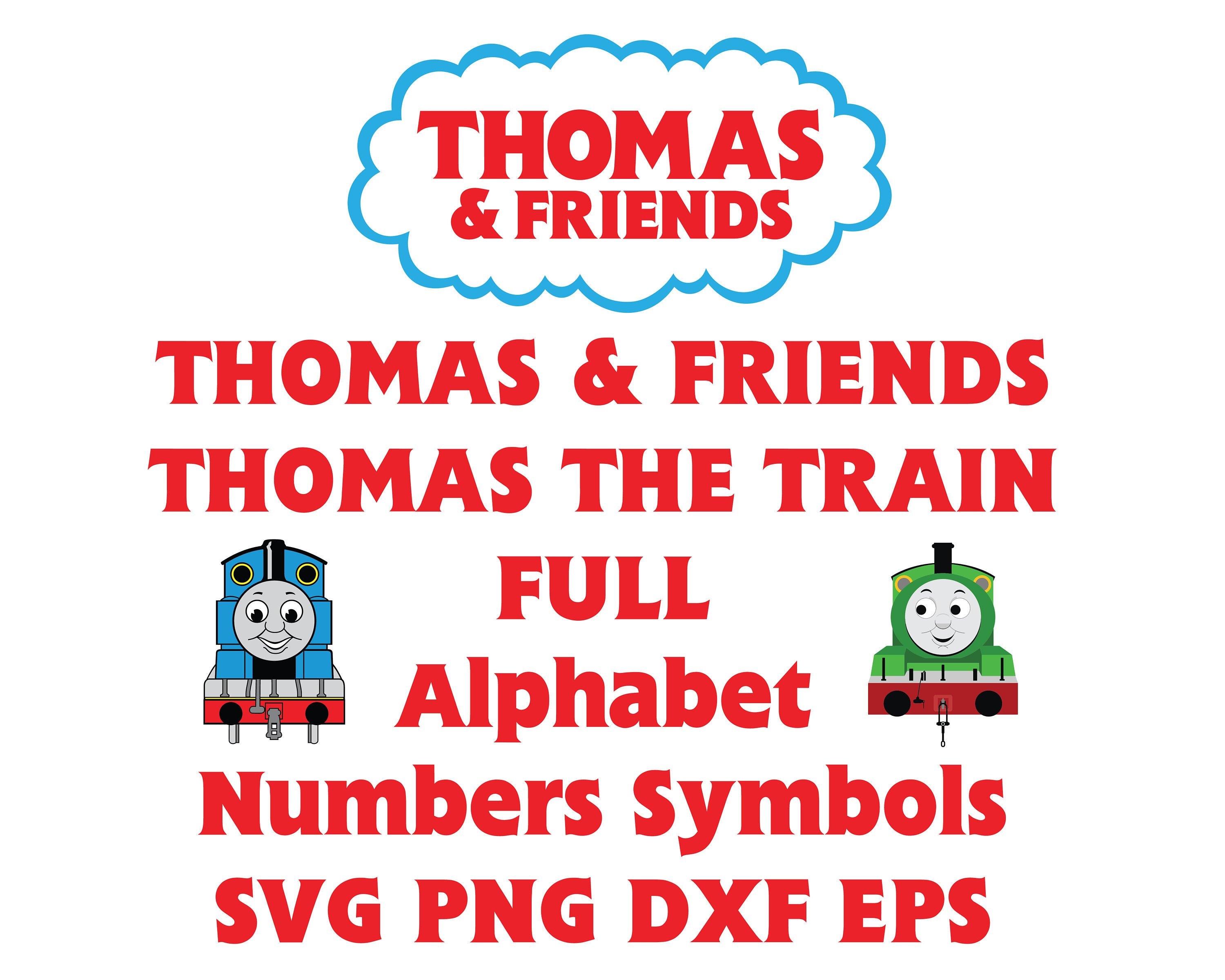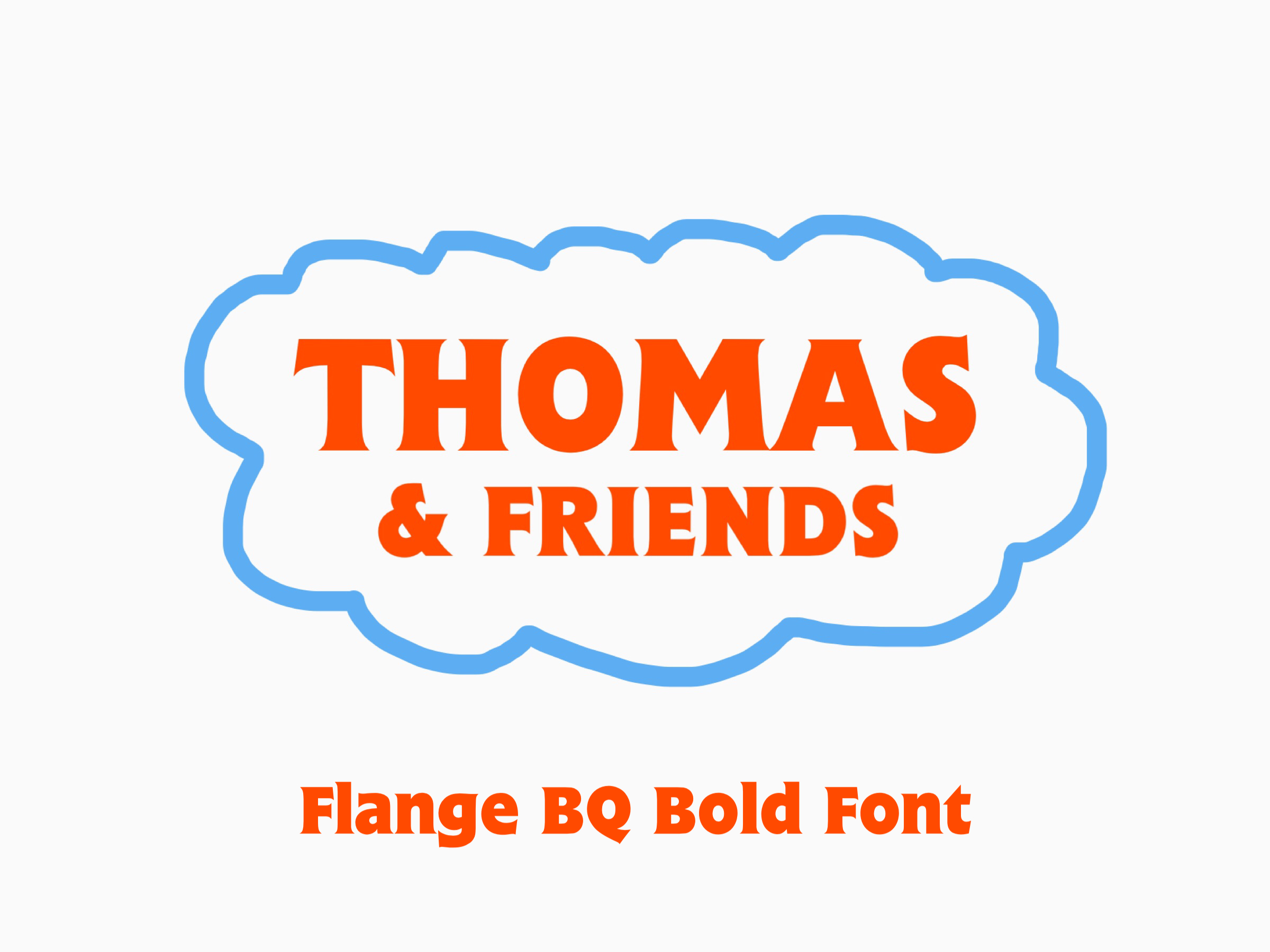
Thomas And Friends Font
Thomas And Friends Font - Thomas & friends (originally known as thomas the tank engine & friends in its early seasons) is a british children’s television series. Web thomas and friends font family. Web its name is flange bq bold font and it was designed by leslie usherwood. Designed by leslie usherwood, flange is a serif typeface available in four weights: And this style has 205 glyphs as well as 1000 units per em. You can use this font for both personal and commercial use. What is the font for thomas the tank engine & friends? Web aug 02, 2020 at 18:49. Web the font used for the logo of the tv series is flange bq bold. This bold font has available in a bold style along with truetype features.
Thomas & friends (originally known as thomas the tank engine & friends in its early seasons) is a british children’s television series. Designed by leslie usherwood, flange is a serif typeface available in four weights: What is the font for thomas the tank engine & friends? And this style has 205 glyphs as well as 1000 units per em. Web the font used for the logo of the tv series is flange bq bold. This bold font has available in a bold style along with truetype features. Web aug 02, 2020 at 18:49. You can use this font for both personal and commercial use. Web its name is flange bq bold font and it was designed by leslie usherwood. Web thomas and friends font family.
Web its name is flange bq bold font and it was designed by leslie usherwood. What is the font for thomas the tank engine & friends? Designed by leslie usherwood, flange is a serif typeface available in four weights: You can use this font for both personal and commercial use. Web thomas and friends font family. And this style has 205 glyphs as well as 1000 units per em. Web aug 02, 2020 at 18:49. This bold font has available in a bold style along with truetype features. Web the font used for the logo of the tv series is flange bq bold. Thomas & friends (originally known as thomas the tank engine & friends in its early seasons) is a british children’s television series.
And this style has 205 glyphs as well as 1000 units per em. Web thomas and friends font family. Thomas & friends (originally known as thomas the tank engine & friends in its early seasons) is a british children’s television series. Web aug 02, 2020 at 18:49. Web the font used for the logo of the tv series is flange.
Thomas & friends (originally known as thomas the tank engine & friends in its early seasons) is a british children’s television series. This bold font has available in a bold style along with truetype features. Designed by leslie usherwood, flange is a serif typeface available in four weights: What is the font for thomas the tank engine & friends? Web.
Web thomas and friends font family. What is the font for thomas the tank engine & friends? Web its name is flange bq bold font and it was designed by leslie usherwood. Thomas & friends (originally known as thomas the tank engine & friends in its early seasons) is a british children’s television series. Web the font used for the.
Designed by leslie usherwood, flange is a serif typeface available in four weights: Thomas & friends (originally known as thomas the tank engine & friends in its early seasons) is a british children’s television series. And this style has 205 glyphs as well as 1000 units per em. This bold font has available in a bold style along with truetype.
Web thomas and friends font family. Thomas & friends (originally known as thomas the tank engine & friends in its early seasons) is a british children’s television series. You can use this font for both personal and commercial use. What is the font for thomas the tank engine & friends? Designed by leslie usherwood, flange is a serif typeface available.
Web thomas and friends font family. Thomas & friends (originally known as thomas the tank engine & friends in its early seasons) is a british children’s television series. Web aug 02, 2020 at 18:49. Web its name is flange bq bold font and it was designed by leslie usherwood. Designed by leslie usherwood, flange is a serif typeface available in.
Web thomas and friends font family. Web aug 02, 2020 at 18:49. Thomas & friends (originally known as thomas the tank engine & friends in its early seasons) is a british children’s television series. Web its name is flange bq bold font and it was designed by leslie usherwood. What is the font for thomas the tank engine & friends?
Designed by leslie usherwood, flange is a serif typeface available in four weights: Web the font used for the logo of the tv series is flange bq bold. Thomas & friends (originally known as thomas the tank engine & friends in its early seasons) is a british children’s television series. Web its name is flange bq bold font and it.
Web the font used for the logo of the tv series is flange bq bold. Web thomas and friends font family. Web aug 02, 2020 at 18:49. And this style has 205 glyphs as well as 1000 units per em. Designed by leslie usherwood, flange is a serif typeface available in four weights:
Thomas & Friends (Originally Known As Thomas The Tank Engine & Friends In Its Early Seasons) Is A British Children’s Television Series.
Web aug 02, 2020 at 18:49. And this style has 205 glyphs as well as 1000 units per em. Web thomas and friends font family. What is the font for thomas the tank engine & friends?